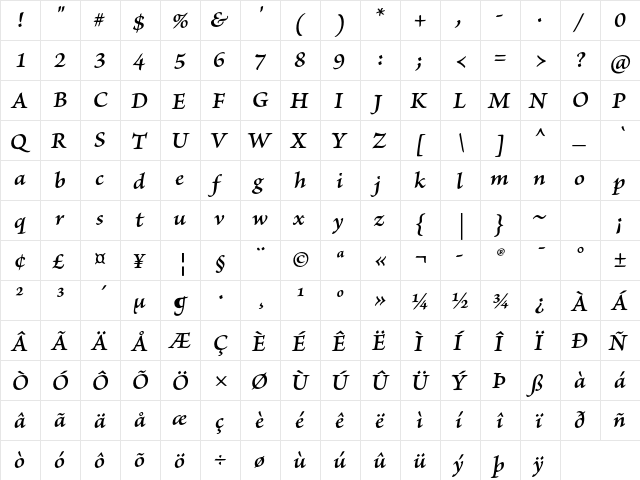
Brioso Pro Semibold Italic Caption
| Designer | Robert Slimbach |
Design Context for Brioso Pro Typeface
Brioso Pro is a composed and adaptable typeface that performs quietly and consistently across a wide range of design contexts. The slanted form adds forward momentum and visual energy. The heavy weight commands attention and anchors typographic hierarchies.
Pro Tip: Use Brioso Pro for emphasis, pull quotes, and subheadings where its slanted energy can add rhythm to the layout.